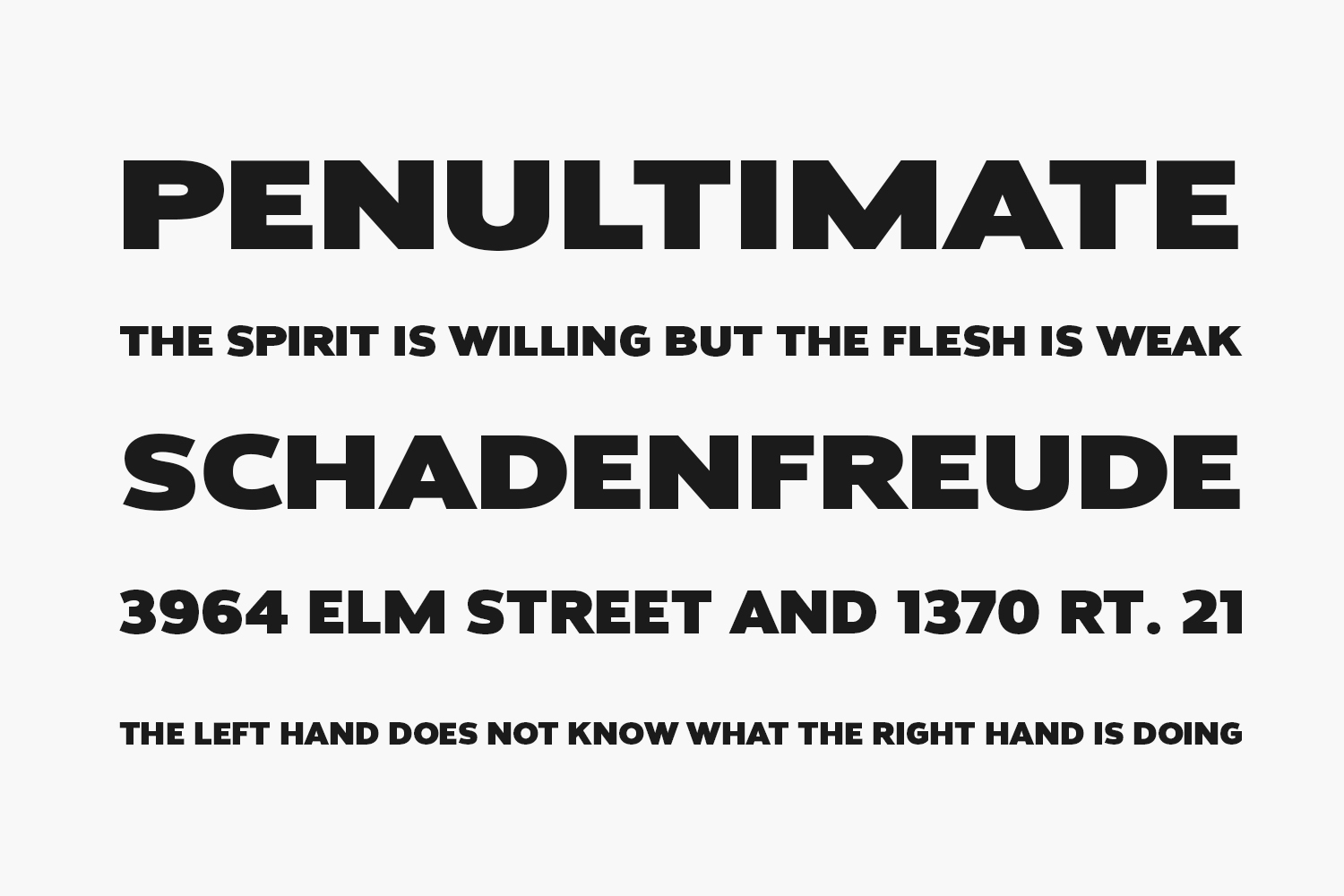
Deli Free Font is a sans-serif typeface that features clean lines and rounded edges, giving it a friendly and approachable look. The font is perfect for branding, packaging, and advertising designs that need a fun and fresh vibe. Deli Free Free Font is free for personal use only. Please purchase the full version for commercial use.
Designed by Faqih Fawaji